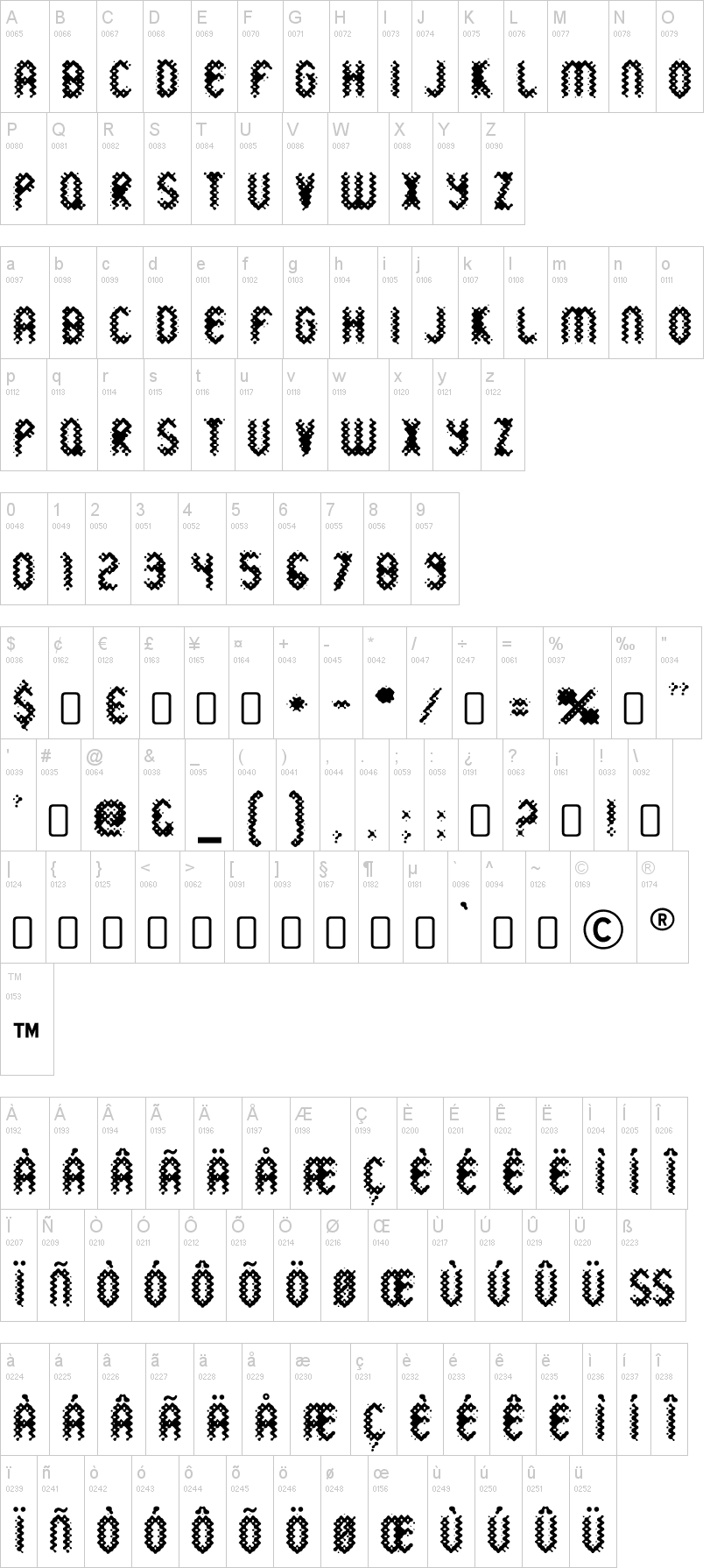
Шрифт Wild Sewerage
Wild Sewerage is halftone and half crazy. Use with caution. Don't forget to read the files inside the zip for details. Updated in 2012.